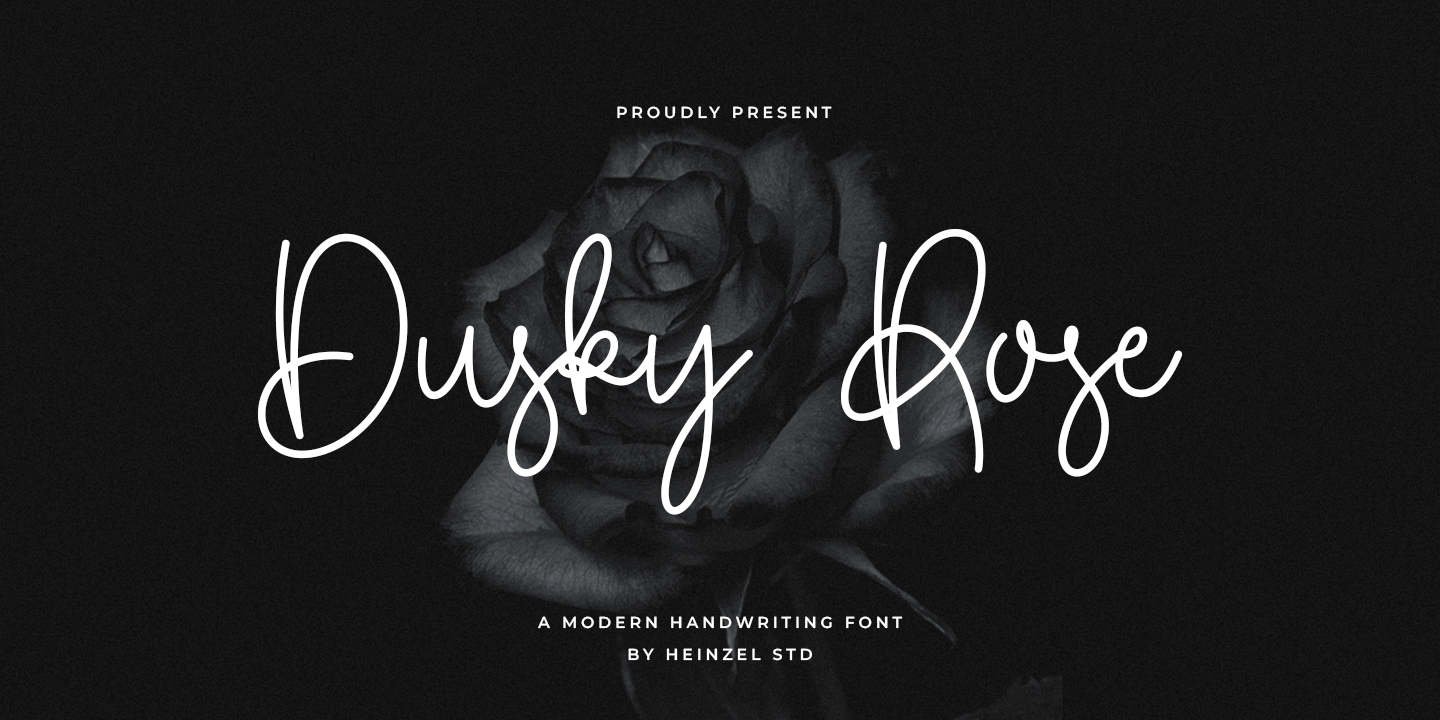
Dusky Rose Font is ideal for vintage romance branding, twilight wedding venues, antique boutique signage, nostalgic beauty salon logos, romantic sunset event materials, and dreamy feminine lifestyle campaigns.
Dusky Rose Font is exciting because it captures the mysterious allure and romantic twilight of evening roses, delivering a softly elegant typeface that embodies dusky romance, vintage femininity, and the enchanting beauty of fading daylight.
The Dusky Rose Font family includes twilight variations: Dusky Rose Light, Dusky Rose Regular, Dusky Rose Medium, Dusky Rose Bold, vintage alternates, and decorative elements inspired by evening garden aesthetics and twilight romance.
Embrace twilight romance with Dusky Rose Font Free Download, a mysteriously crafted typeface that brings vintage elegance and evening enchantment to your most romantic design projects. This dreamy font excels in creating memorable branding for vintage-inspired wedding planners, romantic retreat venues, antique jewelry boutiques, and feminine lifestyle brands that celebrate the sophisticated beauty of twilight hours and nostalgic romance. The softly designed letterforms feature gentle curves and dusky proportions that simulate the romantic glow of roses at sunset while ensuring beautiful readability across all vintage and romantic applications. Perfect for evening wedding invitations, vintage fashion campaigns, romantic poetry collections, and twilight photography studios that need to evoke feelings of nostalgic romance and mysterious feminine allure, this font connects with audiences who appreciate the deeper beauty found in life's quieter, more contemplative moments. Each character glows with dusky elegance, making every romantic message feel like a whispered secret shared in the magical hour between day and night. Dusky Rose Font transforms ordinary communications into dreamy romantic experiences that celebrate the mysterious beauty of twilight while inspiring audiences to embrace the sophisticated romance found in life's most enchanting moments.